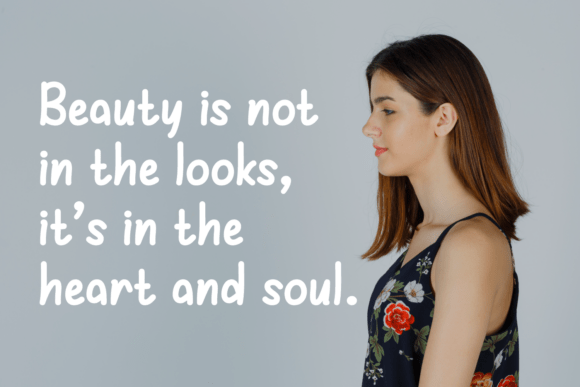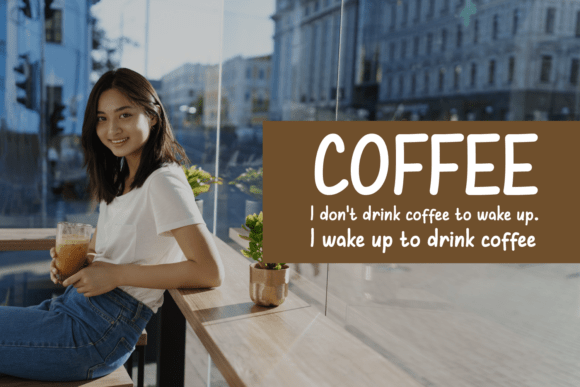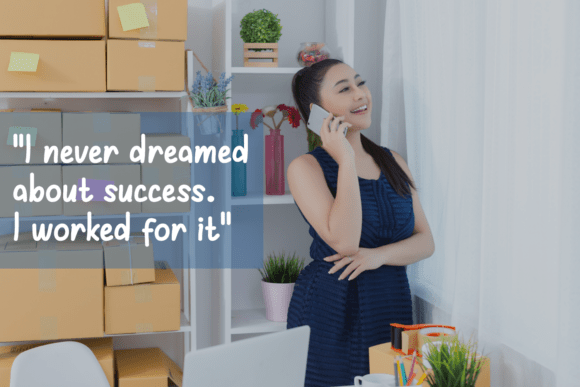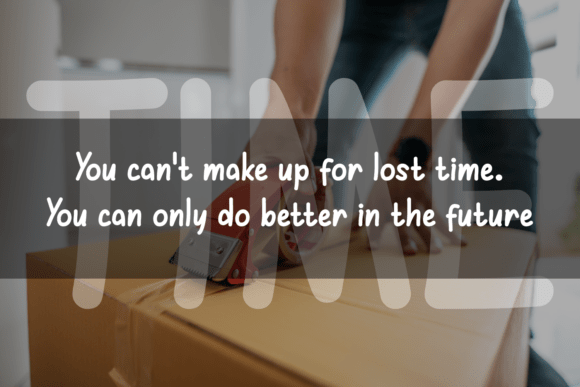
Gandeng Tresno Font: A Heartwarming Handwritten Font for Emotional Connections
In the world of typography, fonts play a crucial role in conveying emotions and setting the tone for various design projects. For designers and crafters looking for a font that exudes simplicity, charm, and a personal touch, Gandeng Tresno is an excellent choice. This handwritten font is designed to radiate warmth and approachability, making it perfect for projects that aim to connect with the audience on an emotional level.
The Characteristics of Gandeng Tresno Font
Gandeng Tresno is characterized by its bold, rounded strokes that give it a cozy and inviting feel. The font’s handwriting style is smooth and fluid, with subtle variations in line width that mimic the natural movement of handwriting. This results in a text that feels genuinely handwritten, adding a personal touch to any design project.
One of the standout features of Gandeng Tresno is its simplicity. The font’s clean and uncluttered design makes it easy to read and understand, even at smaller font sizes. This simplicity also allows the font to be versatile, making it suitable for a wide range of applications, from quotes and social media posts to greeting cards and branding.
Perfect for Emotional and Personal Projects
Gandeng Tresno is particularly well-suited for projects that aim to connect with the audience on an emotional level. Its warm and approachable feel makes it perfect for:
• Quotes: Add a personal touch to inspirational quotes, making them feel more relatable and heartfelt.
• Social Media Posts: Make your social media posts stand out with a font that feels genuinely handwritten.
• Greeting Cards: Create beautiful and heartfelt greeting cards for special occasions.
• Branding: Use Gandeng Tresno to add a personal touch to your brand’s identity, making it feel more approachable and relatable.
Why Choose Gandeng Tresno Font?
There are several reasons why designers and crafters should consider Gandeng Tresno for their projects:
• Unique and Personal Touch: Gandeng Tresno adds a unique and personal touch to any design project, making it stand out from more traditional fonts.
• Easy to Read: The font’s clean and simple design makes it easy to read, even at smaller font sizes.
• Versatile: Gandeng Tresno is suitable for a wide range of applications, from digital projects to print materials.
• Emotional Connection: The font’s warm and approachable feel helps create an emotional connection with the audience.
Tips for Using Gandeng Tresno Font
To get the most out of Gandeng Tresno, consider the following tips:
• Pair with Other Fonts: Experiment with pairing Gandeng Tresno with other fonts to create visual interest and contrast.
• Use for Headings and Titles: Use Gandeng Tresno for headings and titles to add a personal touch and draw attention.
• Adjust Font Size: Adjust the font size to create visual hierarchy and emphasize important information.
Gandeng Tresno is a heartwarming handwritten font that is perfect for designers and crafters looking to add a personal touch to their projects. Its bold, rounded strokes and simple design make it easy to read and versatile, while its warm and approachable feel helps create an emotional connection with the audience. Whether you’re crafting something sweet or sincere, Gandeng Tresno is an excellent choice for any design project that aims to connect emotionally.